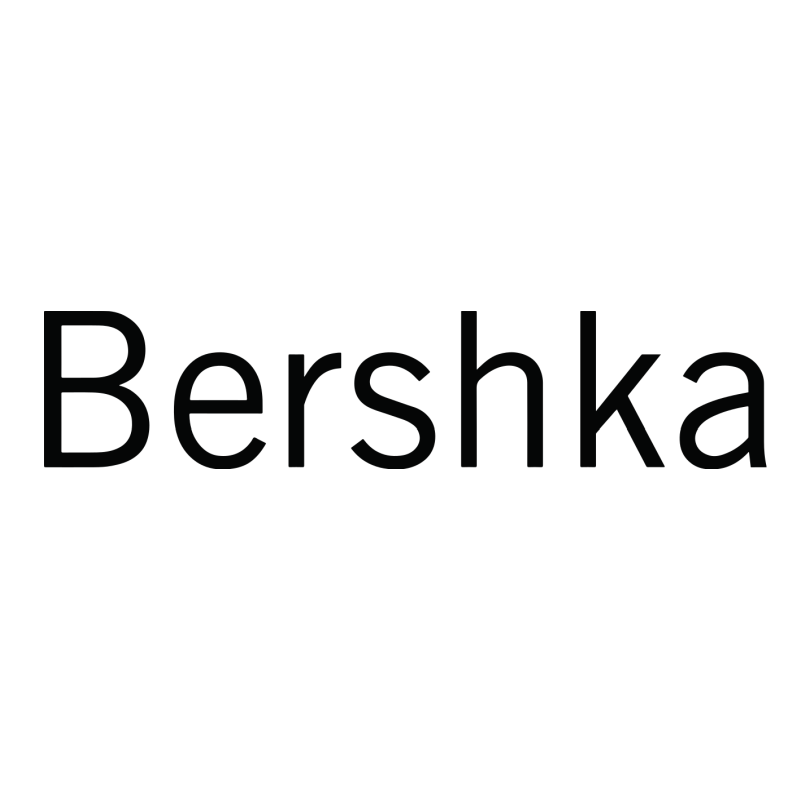
Bershka Logo Font
ApparelBershka is a fashion brand owned by the Spanish company Inditex Group. It was founded in 1998 and is known for its edgy and stylish designs, often incorporating elements of streetwear and urban fashion.
The logo uses Trade Gothic Roman. Trade Gothic is a grotesque sans-serif typeface designed by Jackson Burke in 1948. Trade Gothic Next seems to be a revised version of Trade Gothic by Akira Kobayashi and Tom Grace.